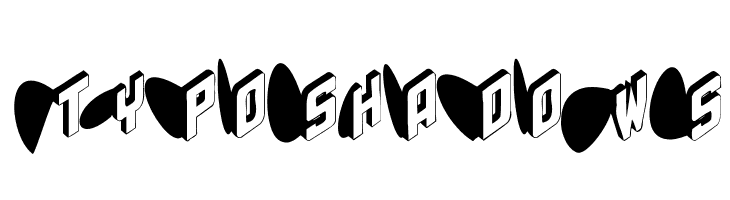
( Fonts by Rick Mueller )
A bold, geometric font with an angular, octagonal design and a three-dimensional effect.
( Fonts by Graham Meade - GemFonts )
A decorative font with a woven brick outline, offering a textured and dimensional appearance.
( Fonts by Dieter Steffmann )
A bold, shadowed font with a strong, three-dimensional appearance.
A bold, geometric font with a three-dimensional, futuristic design.
A bold, three-dimensional font with striking shadow effects and geometric styling.
( Fonts by Daniel Gauthier )
A three-dimensional, geometric font with a modern, industrial aesthetic.
( Fonts by David Rakowski )
Bold, three-dimensional serif font with shadow effects.
( Fonts by David Rakowski )
A bold, decorative font with a three-dimensional, shadowed effect.